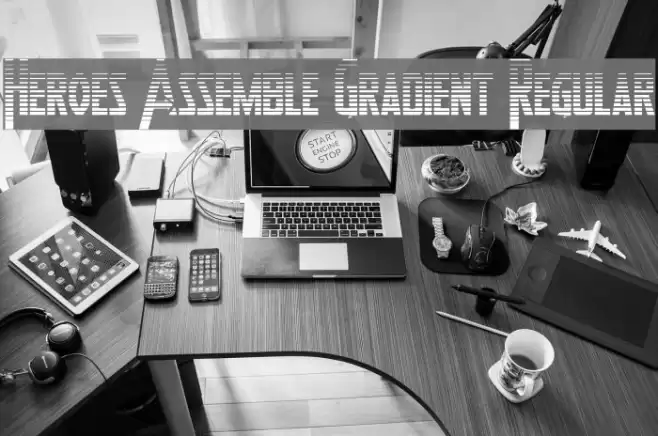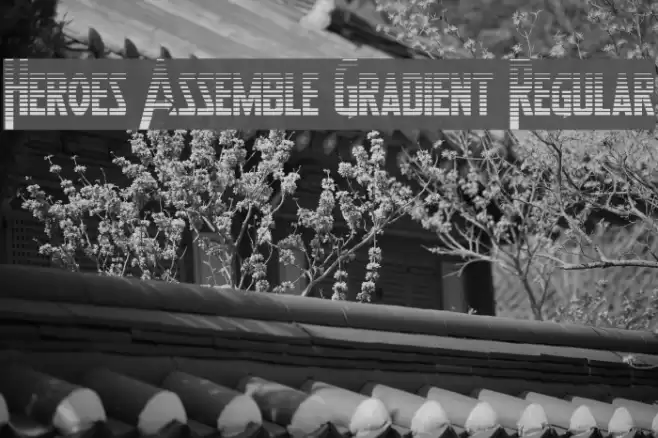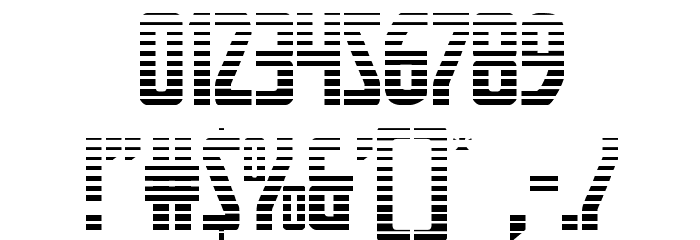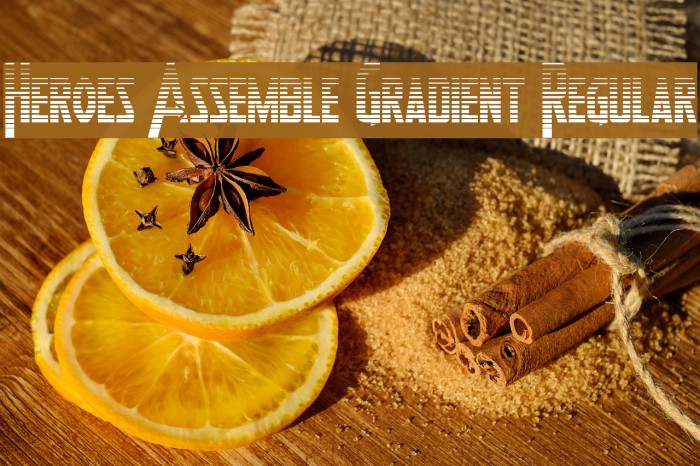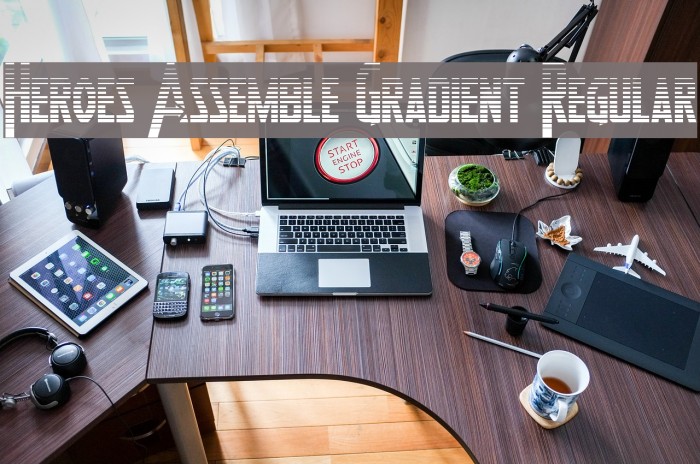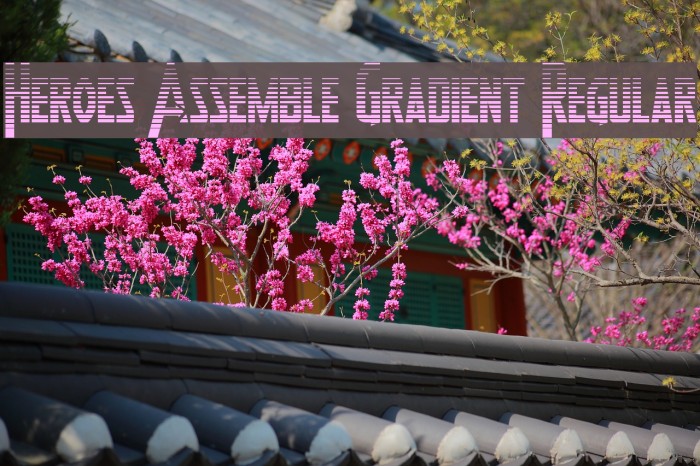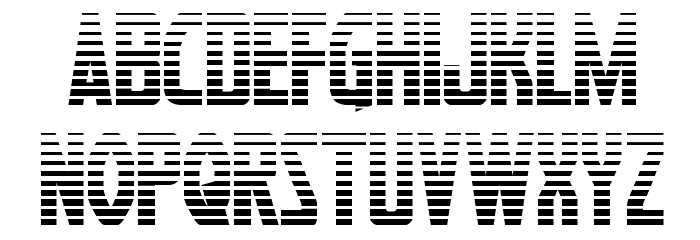
Heroes Assemble Gradient Regular Font
Heroes Assemble Gradient Regular Description
This font features a bold, dynamic design with a unique gradient effect created by horizontal lines that vary in thickness. The uppercase and lowercase letters maintain a consistent style, with sharp angles and a futuristic appearance. The numbers and special characters follow the same pattern, ensuring uniformity across all glyphs. This font's striking visual impact makes it ideal for attention-grabbing designs.
A bold, gradient-style font with a futuristic look from Uncategorized fonts.
- Proposed Projects: Ideal for superhero-themed posters, video game titles, and sci-fi book covers.